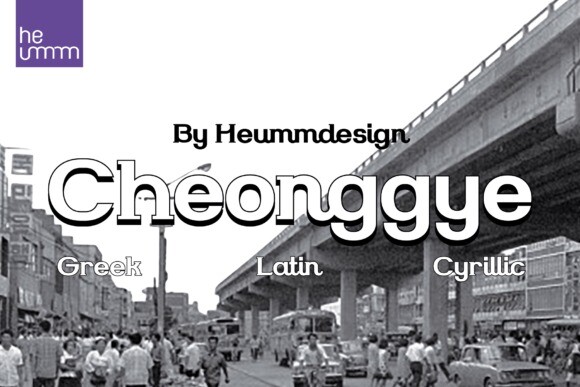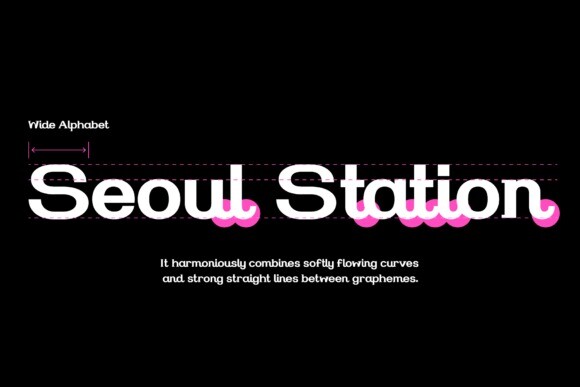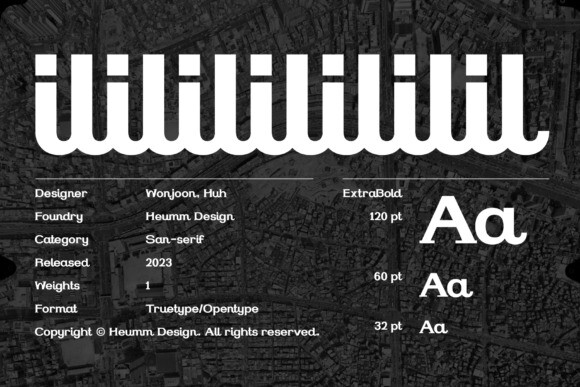
Cheonggye Font
Cheonggye Font is a typeface for titles with thick strokes and wide flats, mainly produced with a retro feel. In order to bring out the characteristics of the retro typeface, a difference in thickness between horizontal and vertical strokes was applied, and obtuse right-angled serifs were applied.